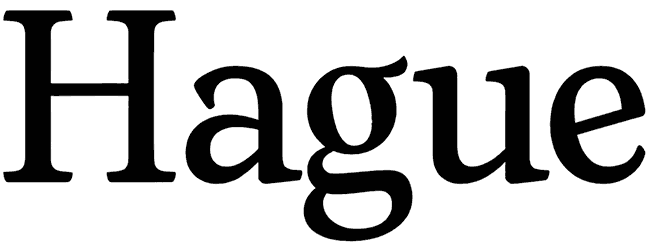
Hague Font
With classic and original style, you can trim any design with formal or informal subjects. This book font, with a modest vibe, is a smart choice to show your ideas. Hague with an almost full cover of characters is an apt pickup for logos, cards, posters, packaging, or any other design you are working on it.